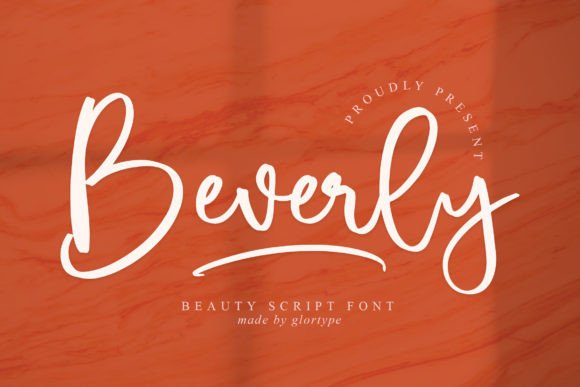
The Quest for the Perfect Font: Discovering Beverly
I’ll never forget the time I was working on a branding project for a boutique coffee shop. I had the logo concept nailed, but I was struggling to find the perfect font to complement it. The client wanted something elegant, yet approachable; something that would make their customers feel like they’re sipping a latte in a cozy café. That’s when I stumbled upon Beverly, a beautiful handwritten font that stole my heart.
First Impressions: A Beautiful Handwritten Font
Beverly is a stunning script font designed for a wide range of creative projects, from logos and branding to homeware designs, product packaging, and more. Its elegant, cursive strokes and beautiful letterforms make it perfect for adding a touch of sophistication to any design.
So, what makes Beverly so special? Here are a few things I love about this font:
- ✨ Elegant and sophisticated: Beverly’s cursive strokes and beautiful letterforms make it perfect for high-end branding and design projects.
- ✅ Highly versatile: This font is suitable for a wide range of projects, from logos and branding to homeware designs, product packaging, and more.
- 💫 Unique character: Beverly has a distinctive personality that sets it apart from other script fonts.
Of course, no font is perfect, and Beverly has a few small quirks:
- 🤔 Limited use in body text: While Beverly is stunning as a headline or title font, it may not be the best choice for longer blocks of text.
- ⚠️ Occasional kerning issues: As with any font, you may need to adjust the kerning to get the best results.
- Explore the OpenType features, such as glyphs and stylistic alternates, to add more personality to your text.
The Story Behind Beverly
Beverly was designed by a talented type designer who wanted to create a font that would evoke the feeling of luxury and sophistication. Inspired by classic script fonts, Beverly was crafted with attention to detail and a passion for beautiful typography.
| Is Beverly suitable for body text? | No, Beverly is best used as a headline or title font. Its elegant strokes and beautiful letterforms make it perfect for adding a touch of sophistication to your design, but it may not be the best choice for longer blocks of text. |
| Does Beverly come with OpenType features? | Yes, Beverly includes OpenType features, such as glyphs and stylistic alternates, which allow you to add more personality to your text. |
| Is Beverly easy to read? | Yes, Beverly is a clear and elegant font that’s easy to read, even at smaller sizes. |